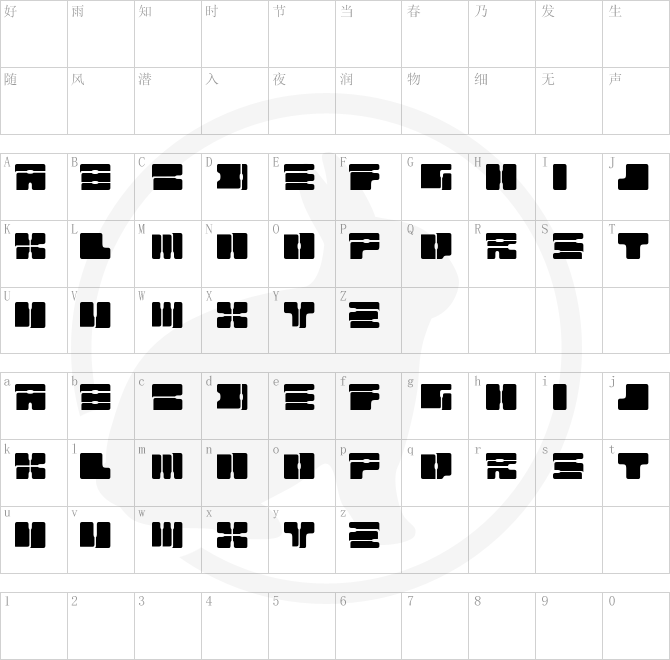
- Font Name:Cable
Cable.ttf is a very beautiful artistic font, Cable.ttf is widely used in the design and printing of various books and pictures,Cable.ttf has a strong visual impact,Cable.ttf is a commonly used font in newspapers, magazines and books, and is used in posters, e-commerce Poster design, store design, logo design, font design and other fields.Cable.